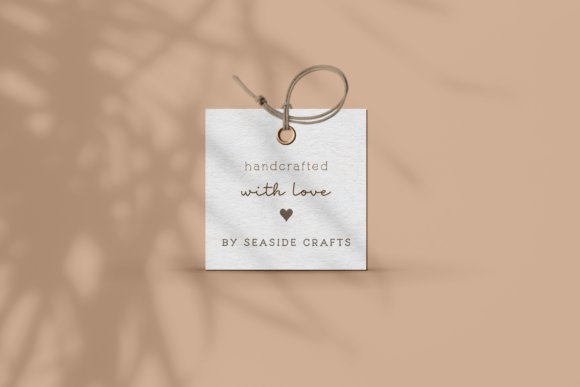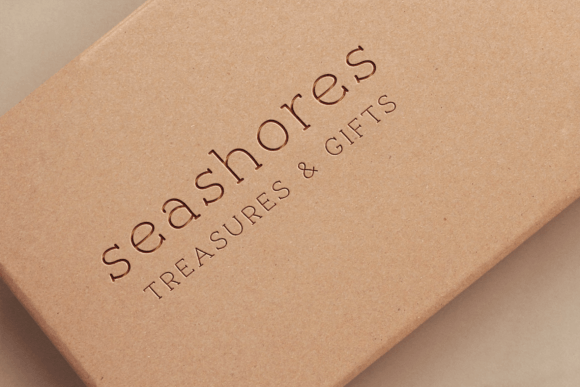
Seashells Font
Immerse yourself in the whimsy of the seaside with our “Seashells” font. Elegantly handcrafted, this font captures the essence of summer days, sandy toes, and the carefree joy of collecting seashells along the shoreline.
Designed with a playful yet refined touch, “Seashells” is perfect for adding a beachy, childlike charm to any project. Whether you’re creating logos, stationery, merchandise designs, or web graphics, the “Seashells” font exudes a warmth and familiarity that’s sure to captivate.
Evoke memories of playful days by the sea with every keystroke. Infused with a handmade, boutique feel, “Seashells” stands out in its ability to seamlessly blend professionalism with playful charm, making it ideal for a vast array of creative endeavors.